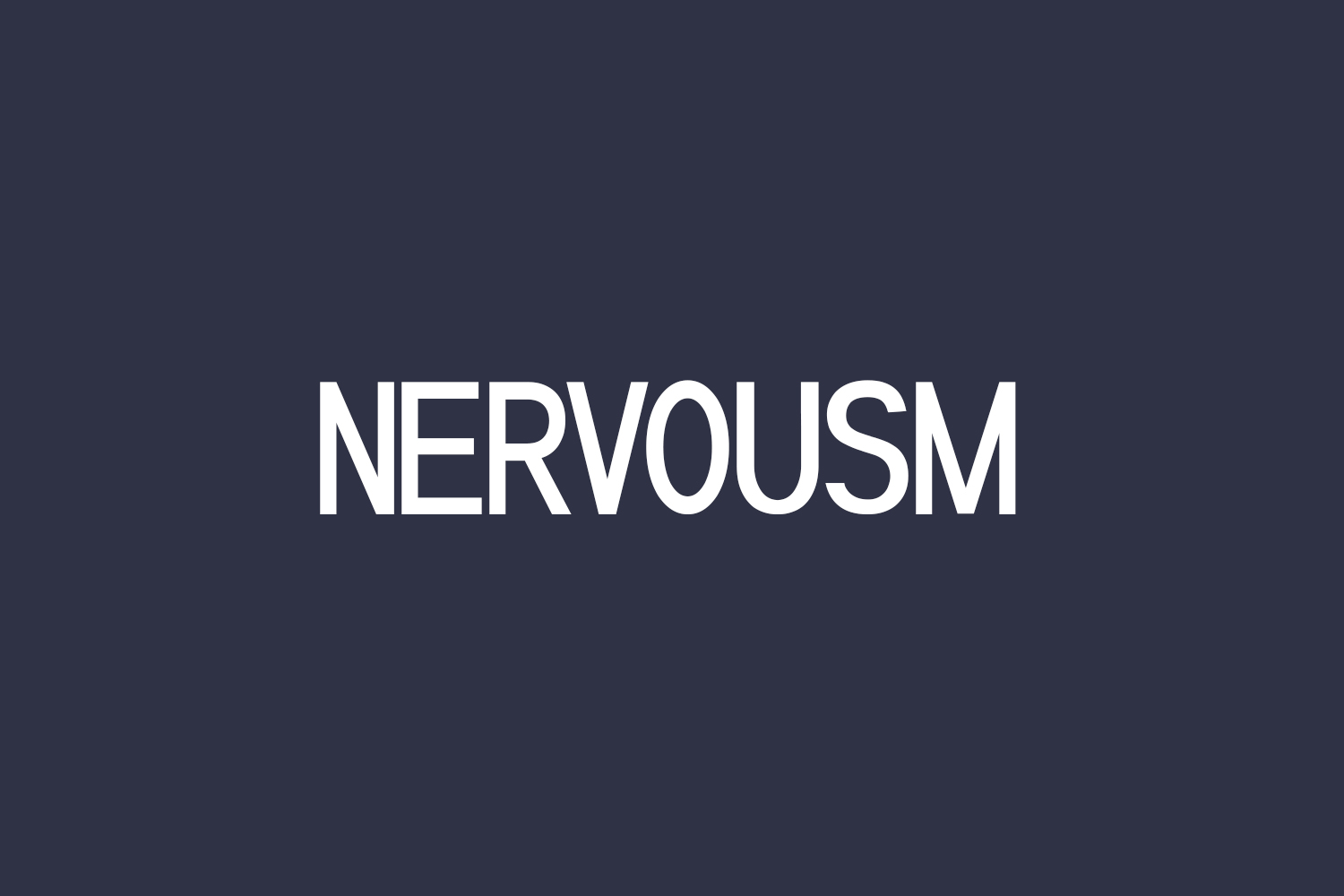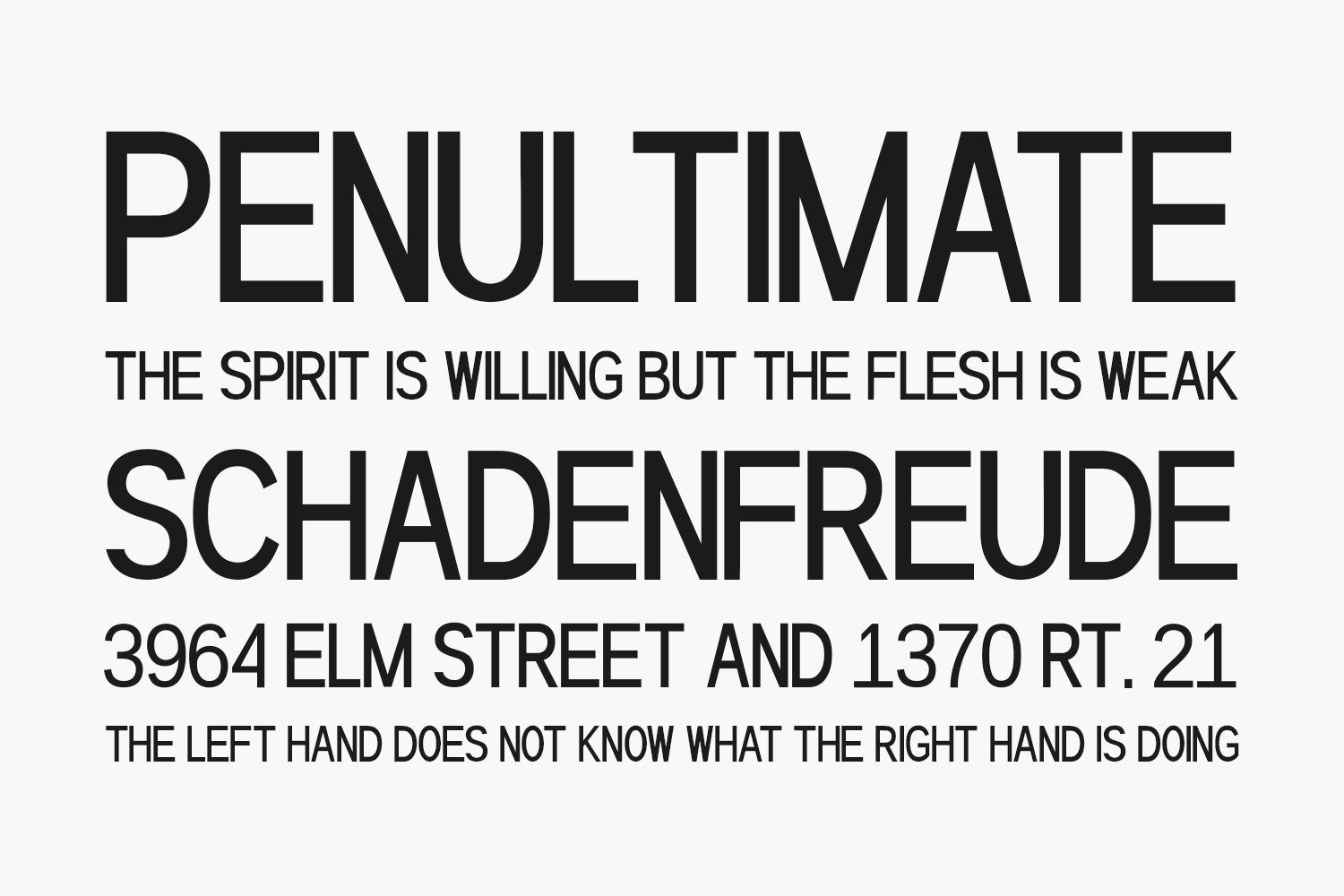
Nervousm Free Font Family is a modern take on a classic condensed typographic style. Simple geometry and with humanist nuance that adds warmth. it’s a perfect choice for branding, magazines, posters, advertising, packaging, headlines, logos, web, print etc.